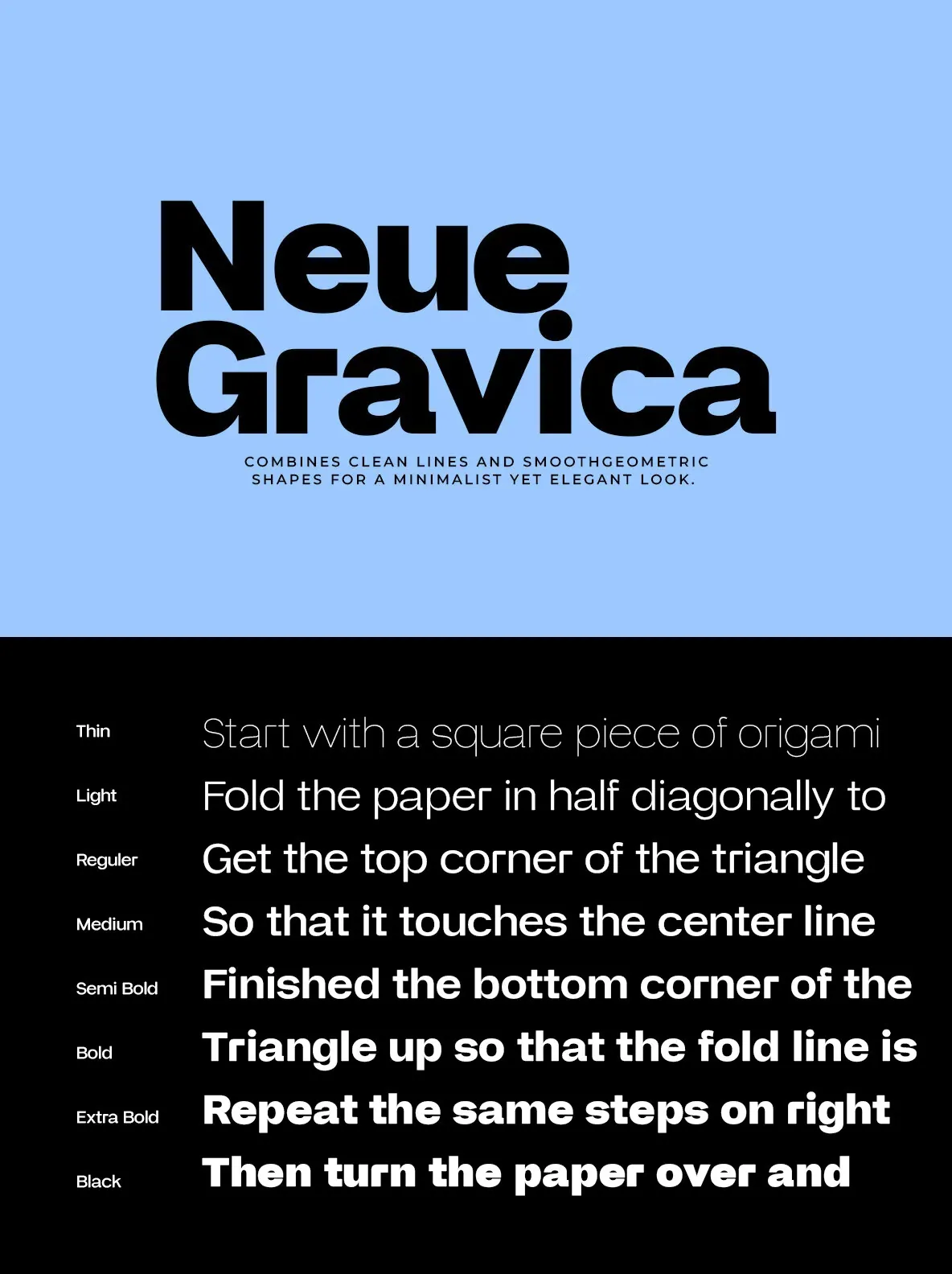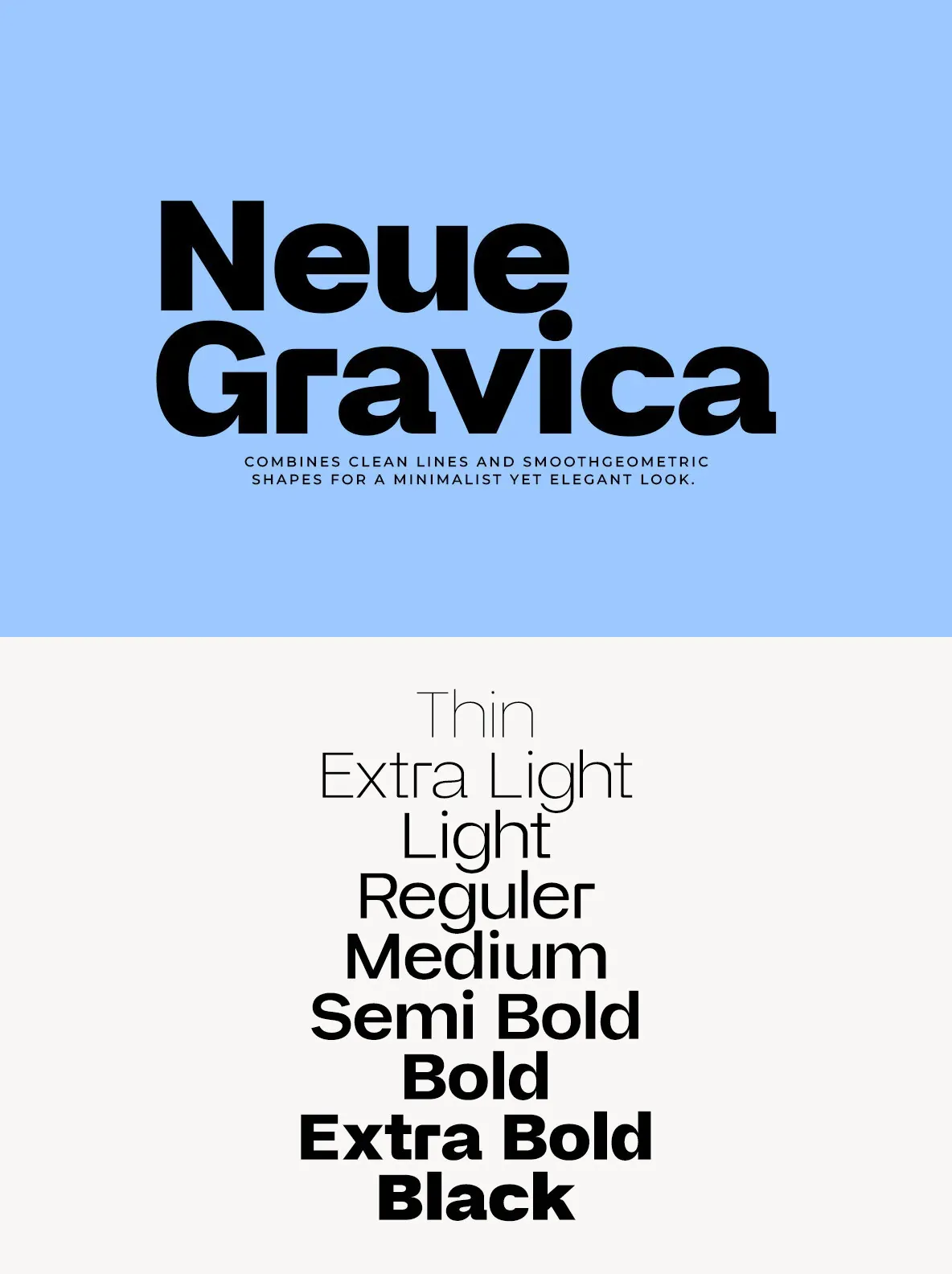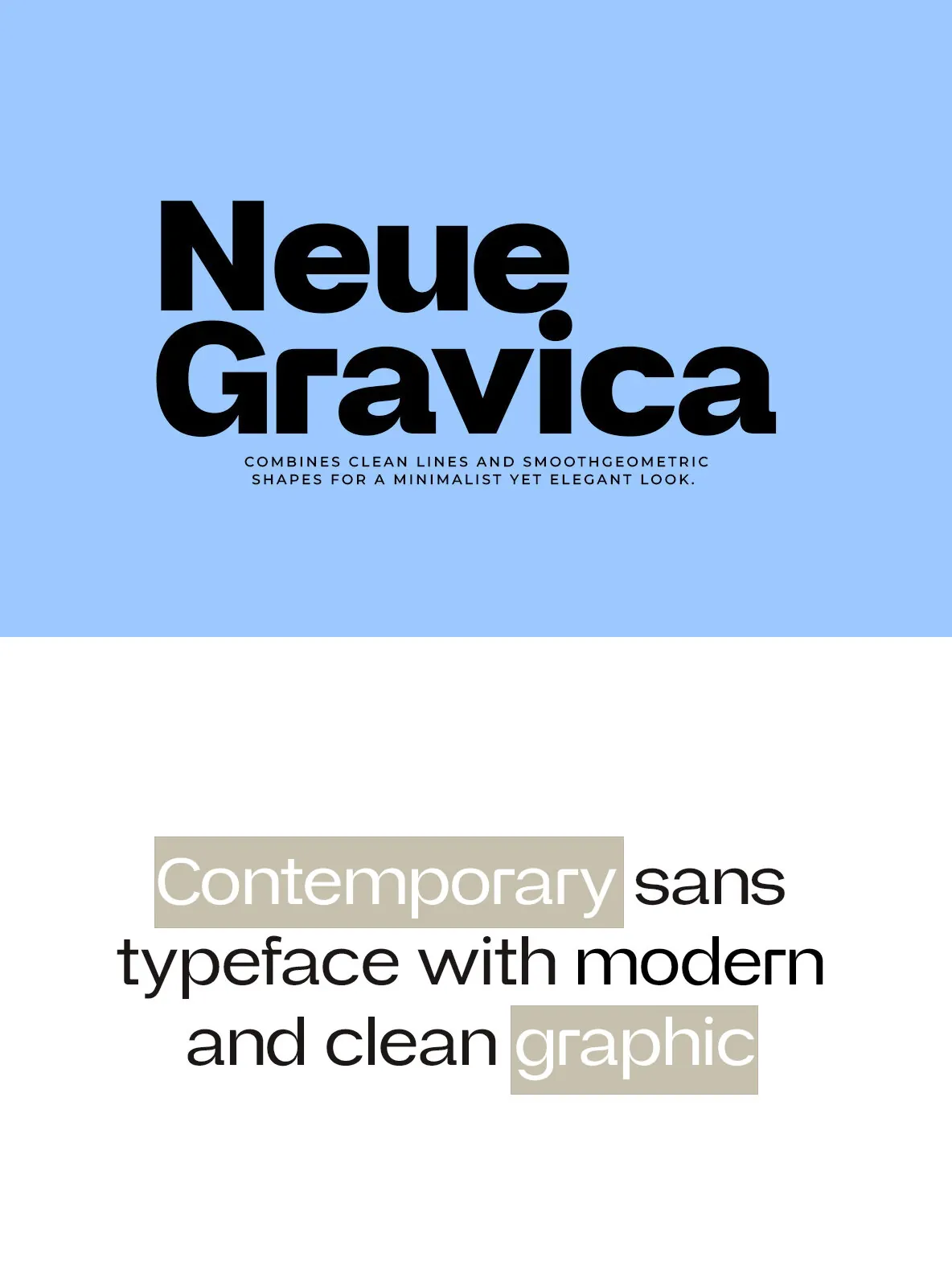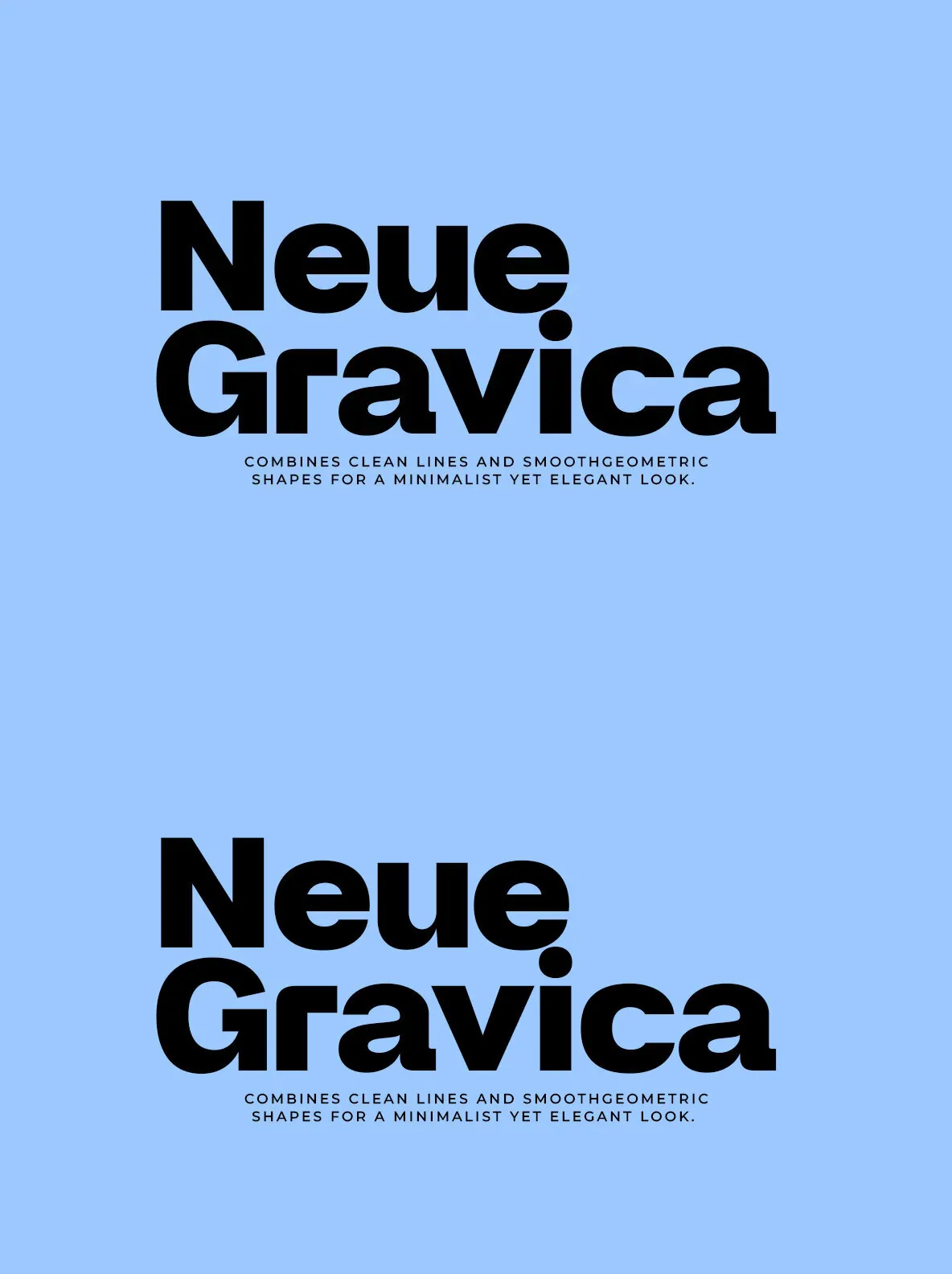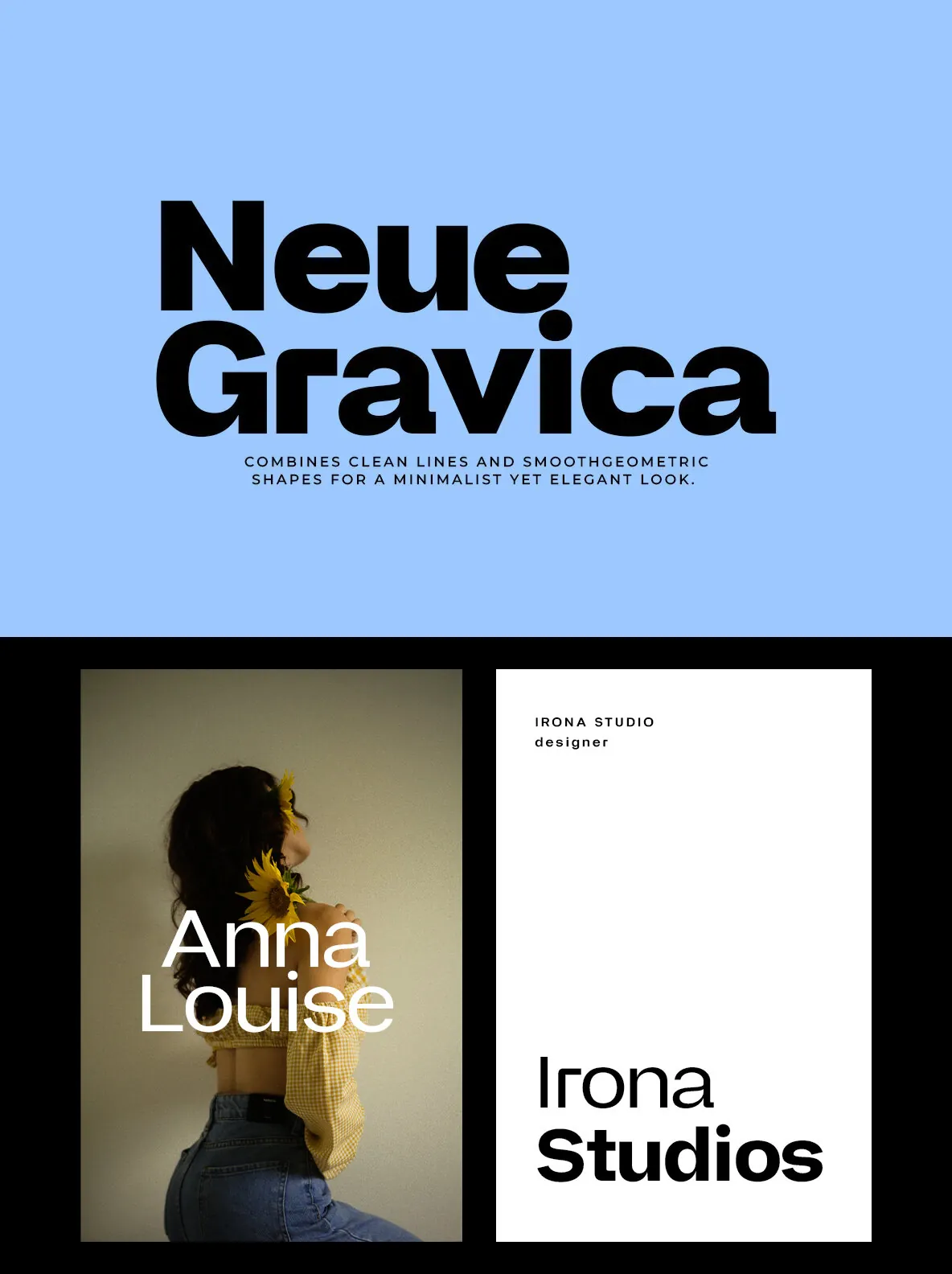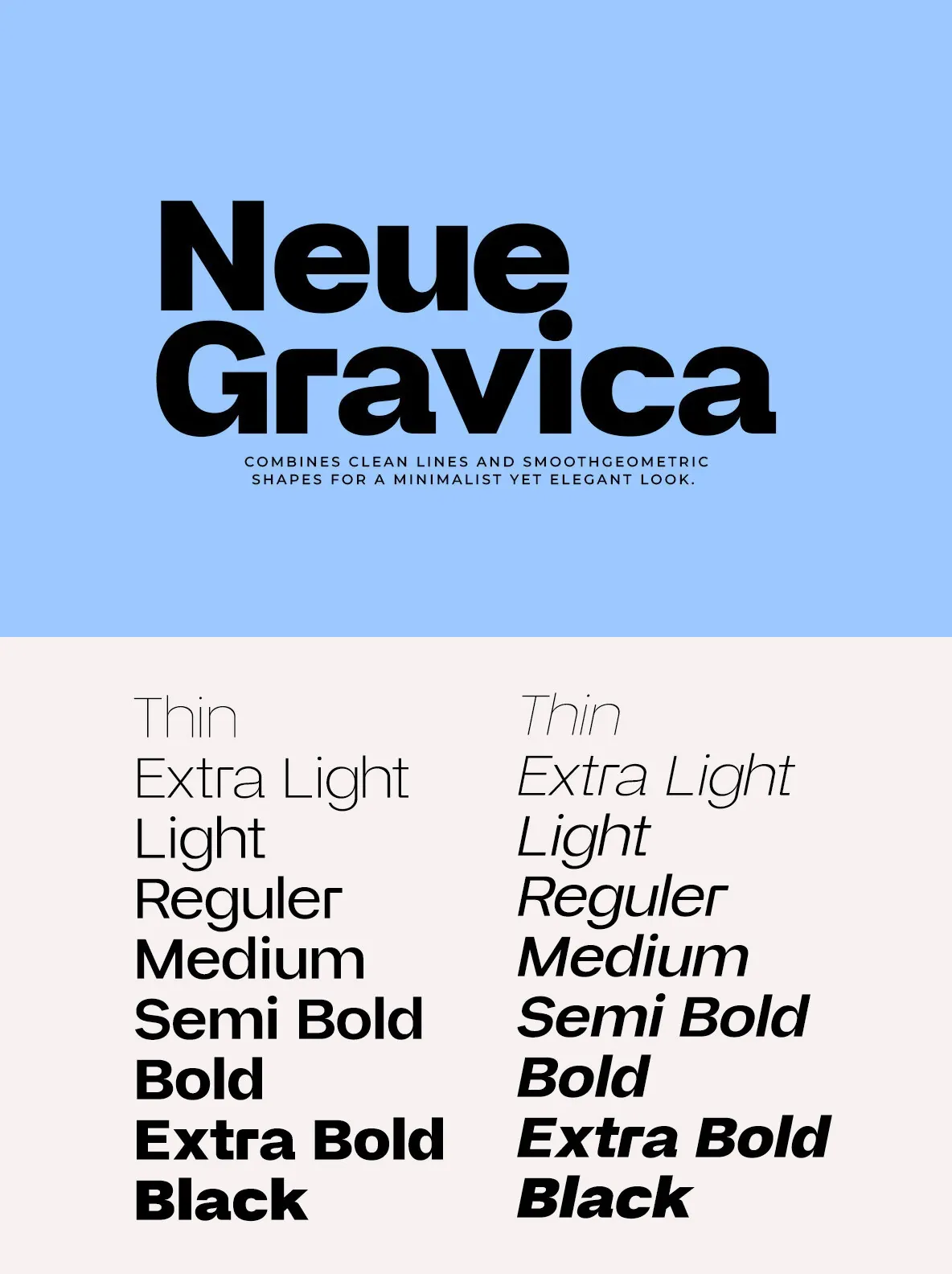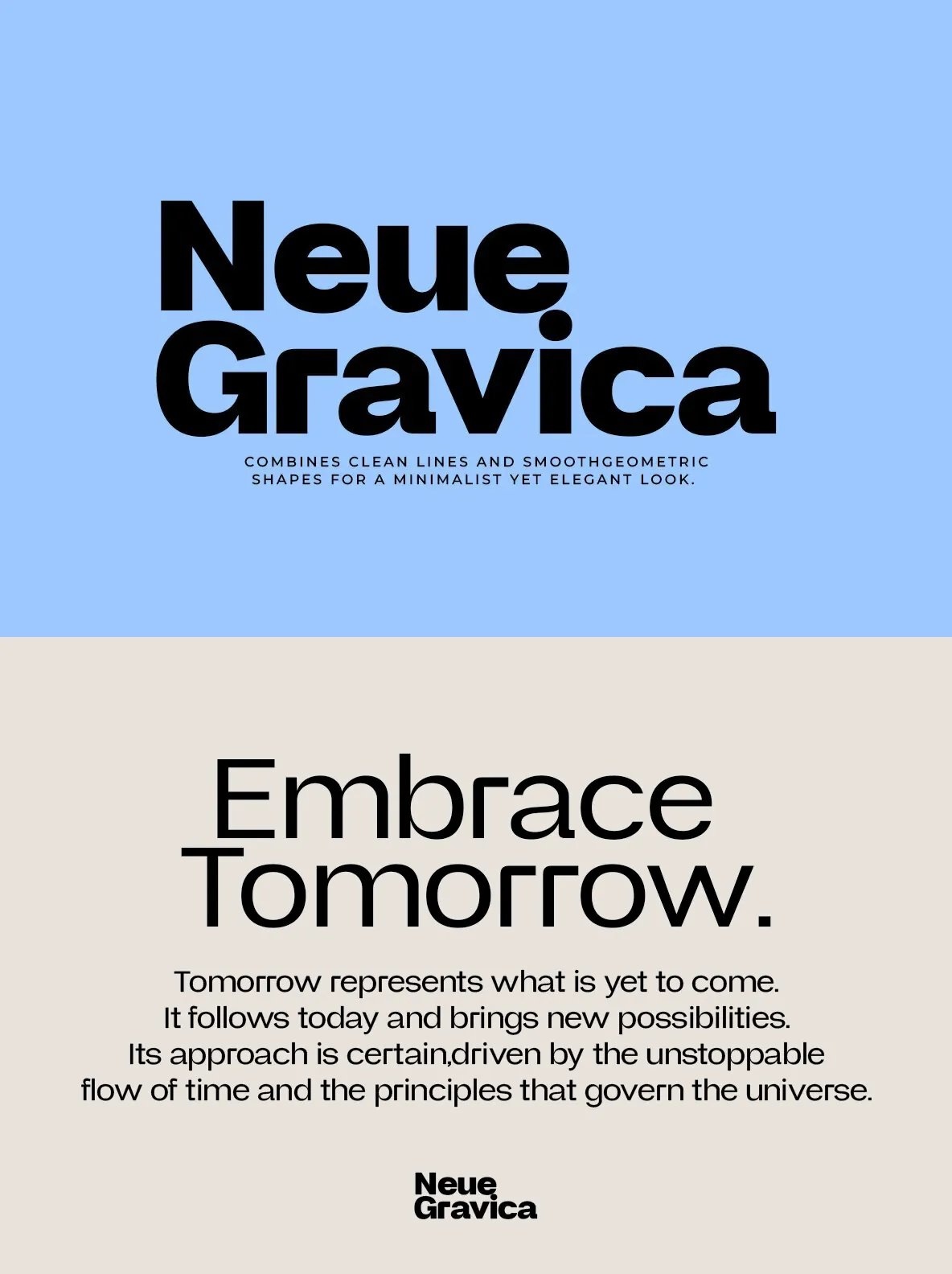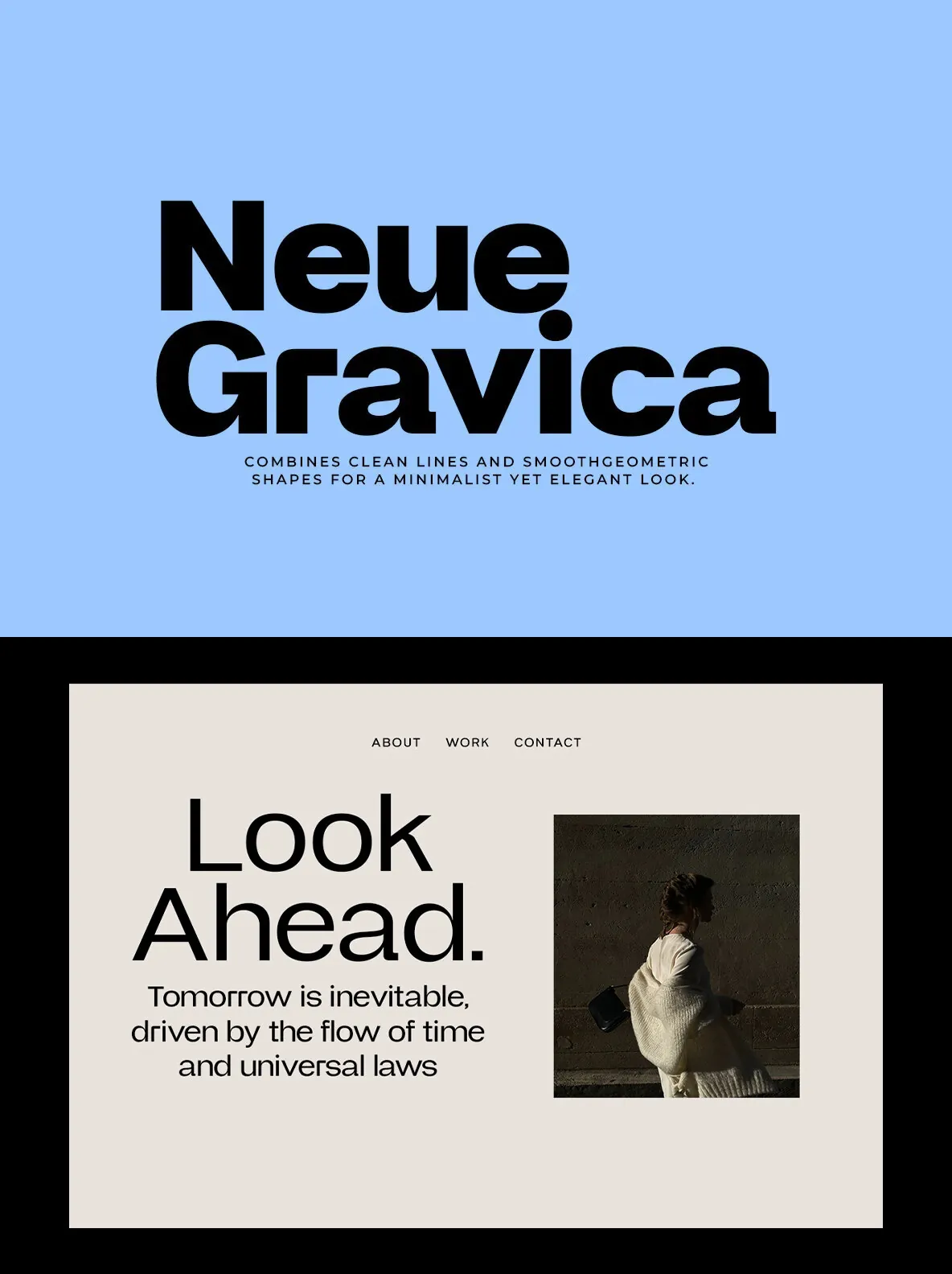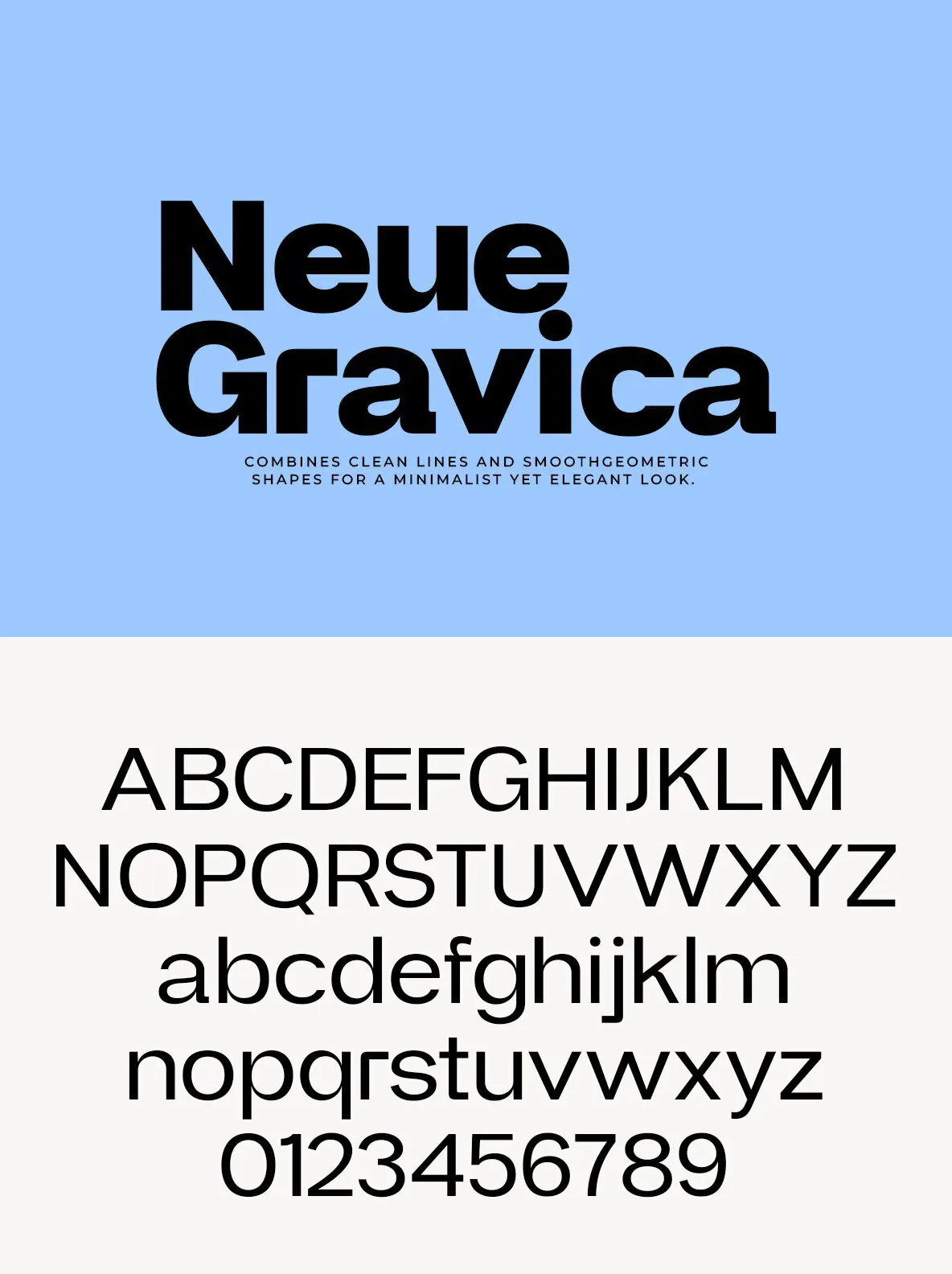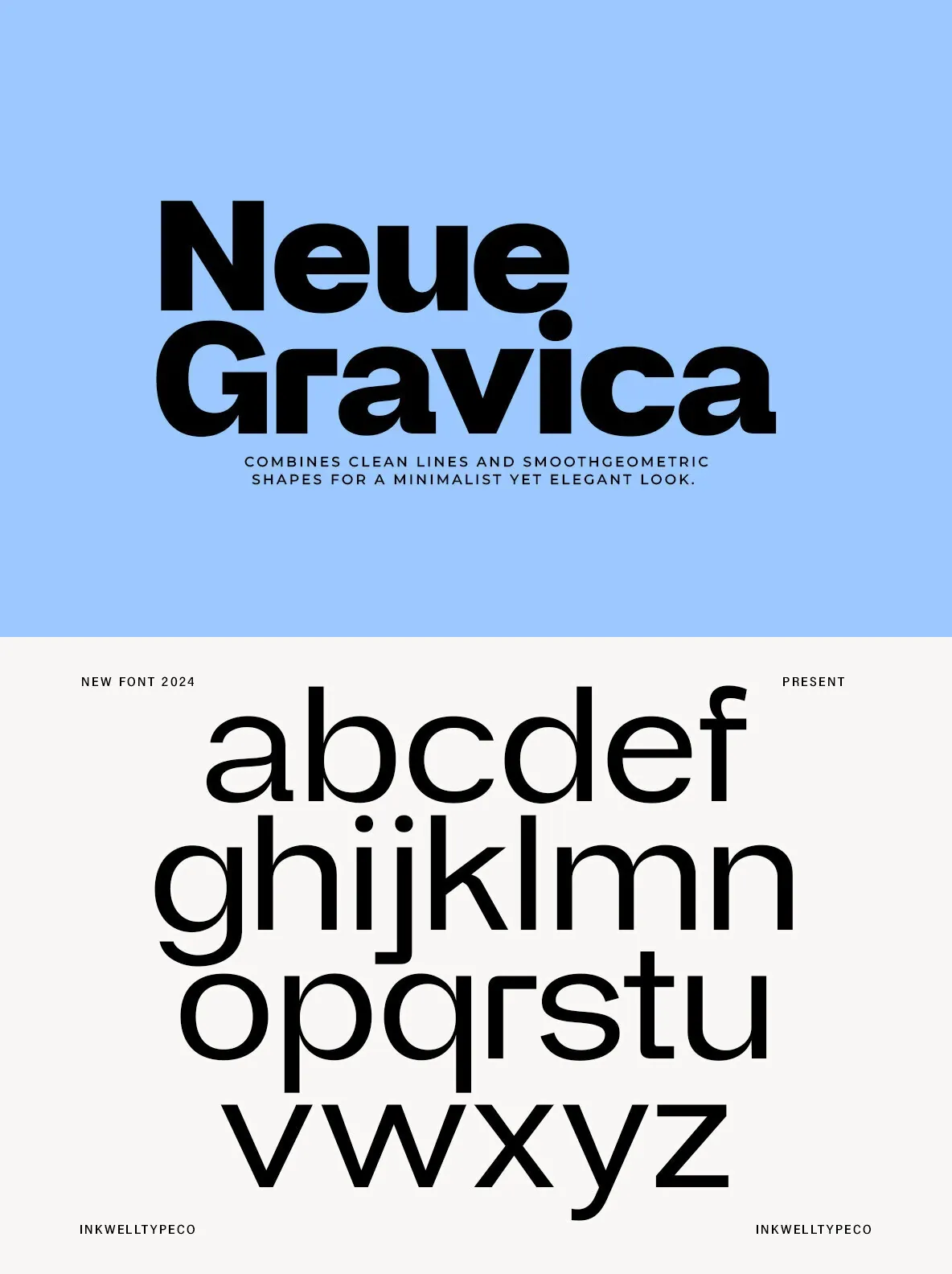
Neue Gravica: Geometric impact, clean restraint
A modern display typeface that blends bold geometric forms with smooth, clean lines. Its sleek design reads clearly and confidently, making it a strong choice for print and digital media where typography needs to carry the message.
Use it for logos, branding materials, and web designs that call for a minimalist yet elegant look. The strong, contemporary appearance suits bold headlines, posters, and visual identities that need to stand out without visual noise. Designed by InkwellTypeCo., Neue Gravica brings crisp structure and polished simplicity to modern brand systems.